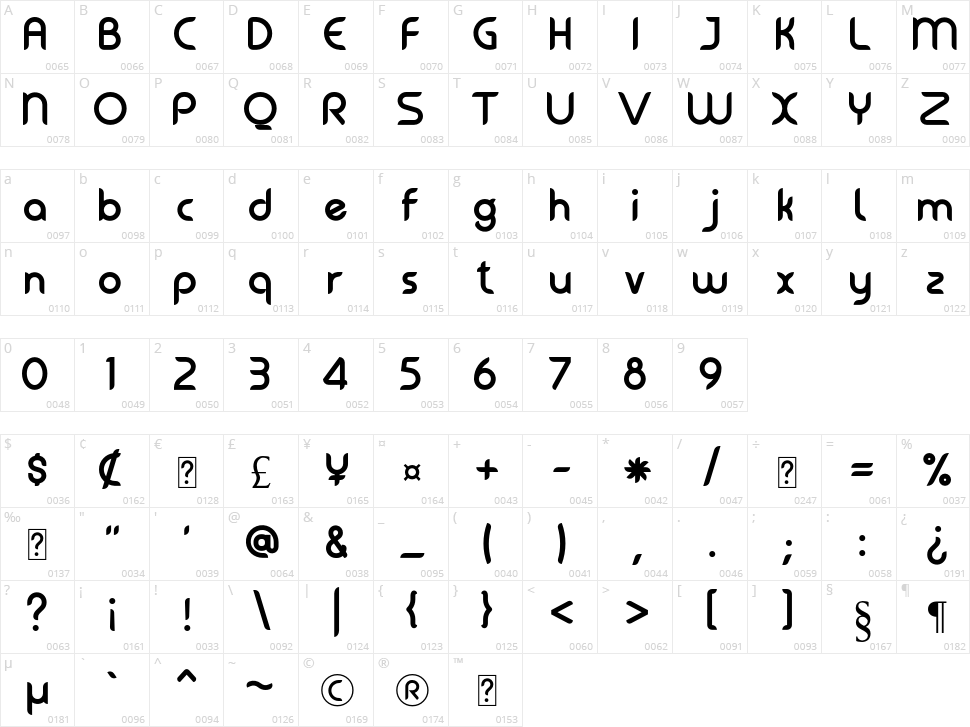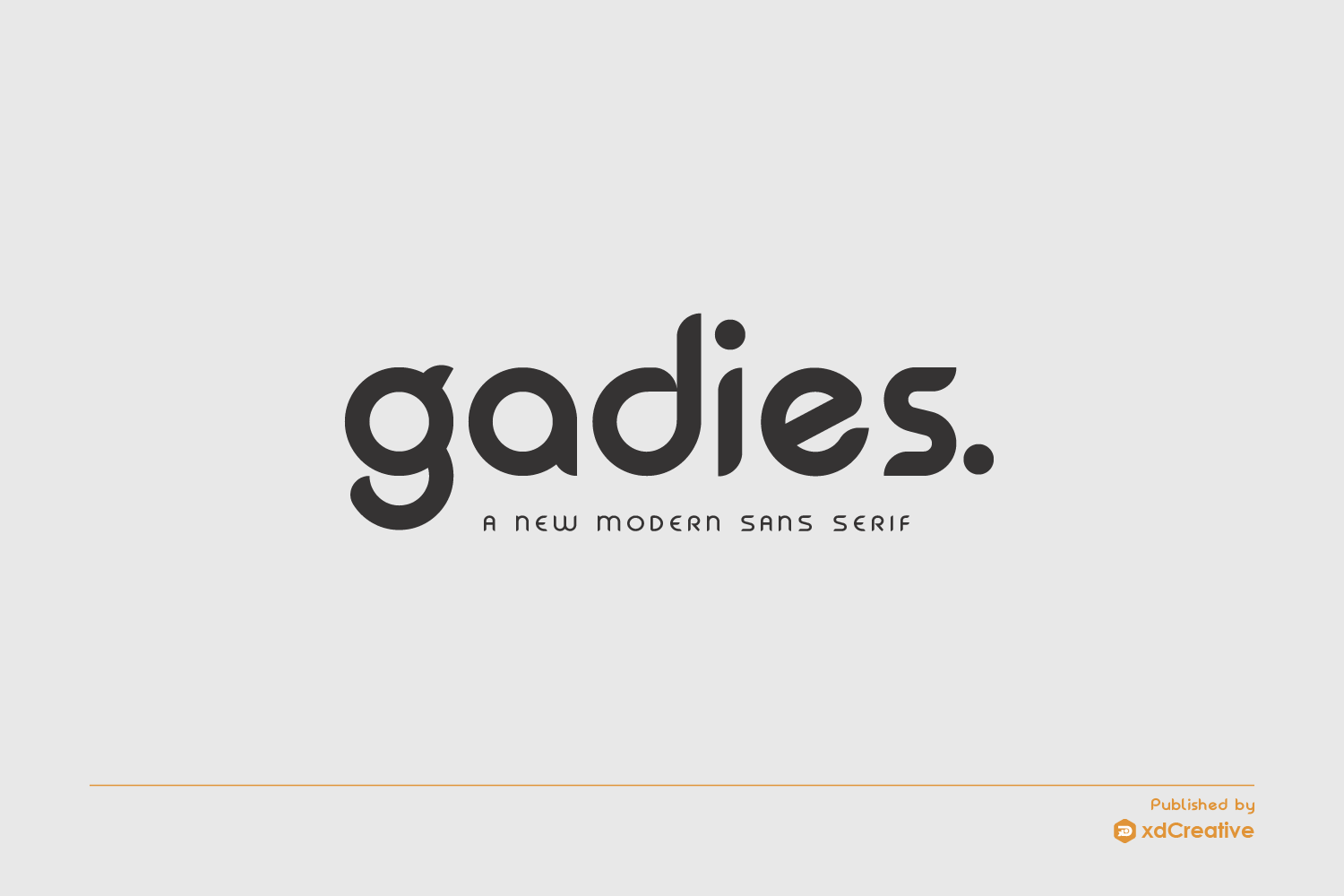
Gadies
Note of the author Gadies is a modern sans serif font. With its amazing and fun style, this typeface will look outstanding in both formal and non-formal designs.